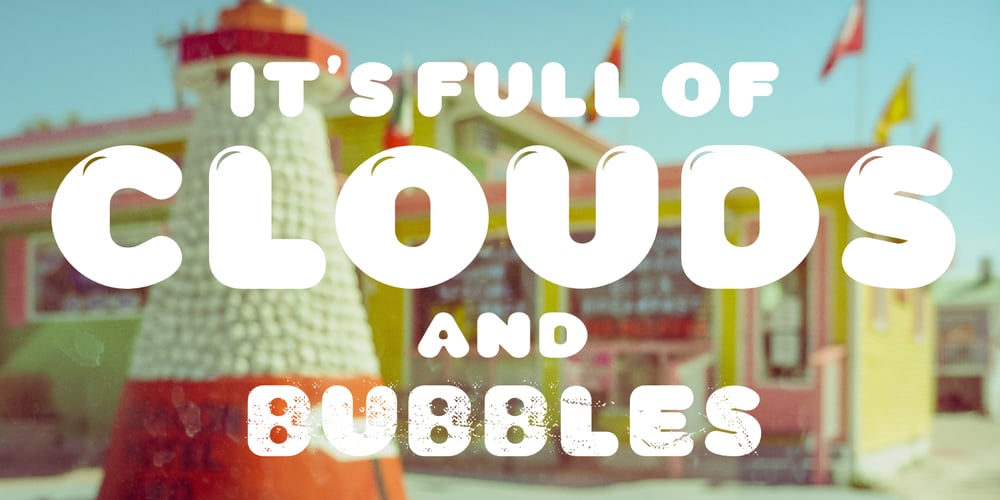
CA Wolkenfluff Font Family was designed by Thomas Schostok and published by Cape Arcona Type Foundry. CA Wolkenfluff contains 4 styles and family package options. Yum, yum, a fat sausage font including plain and highlighted letters and a Stencil style if you need to spray something on walls. No, no! A Trash version is also included if you like dirt typefaces.